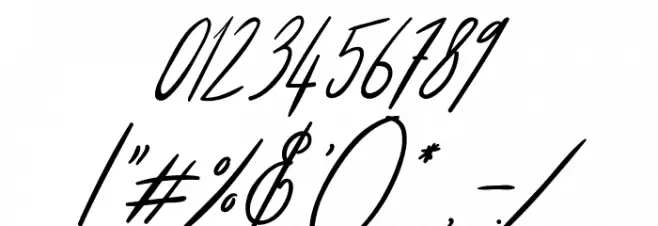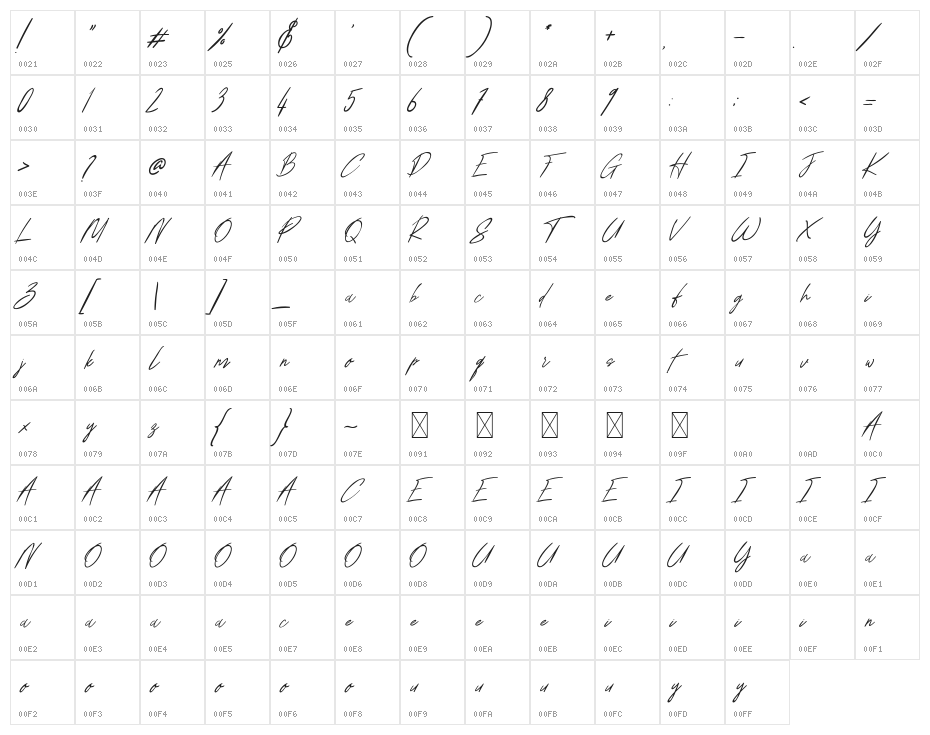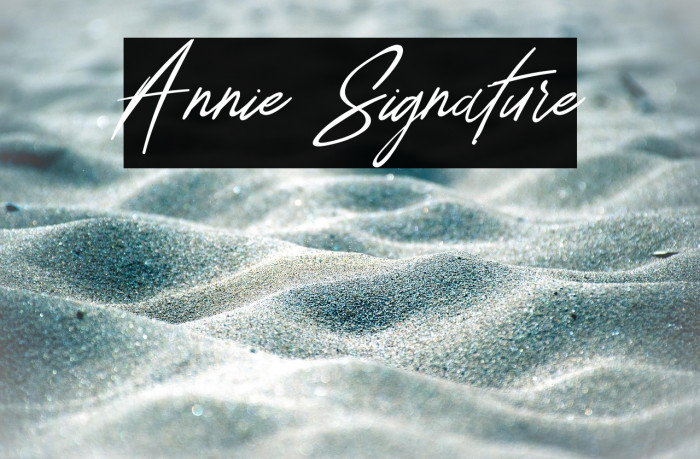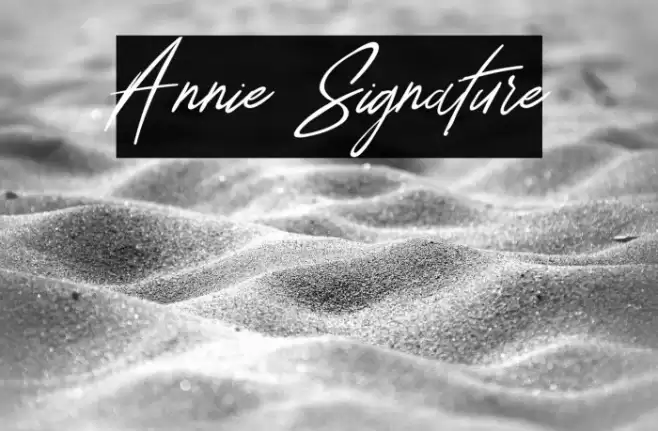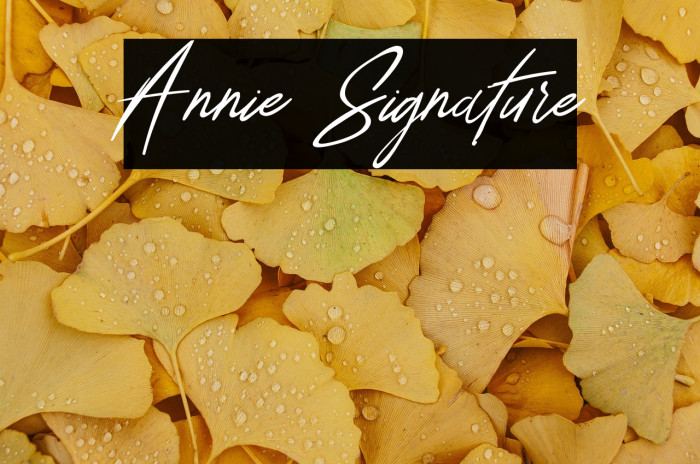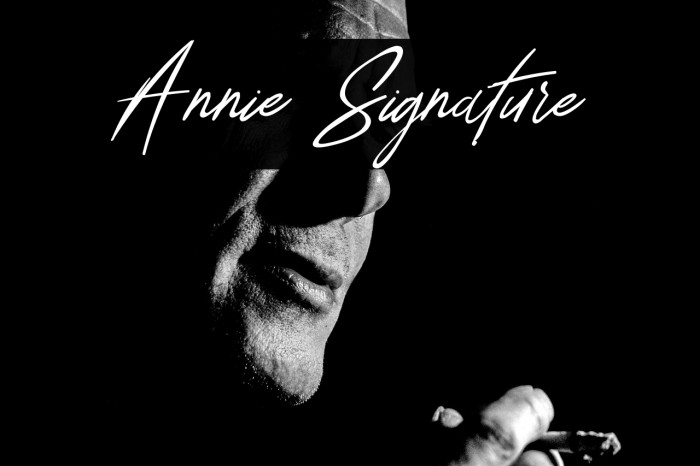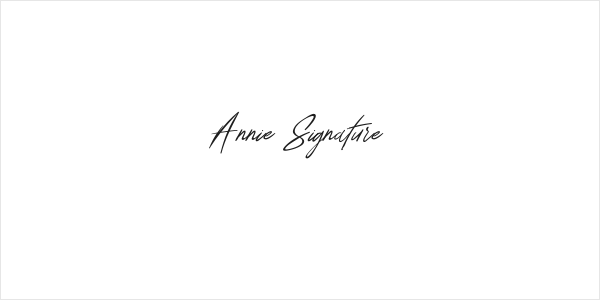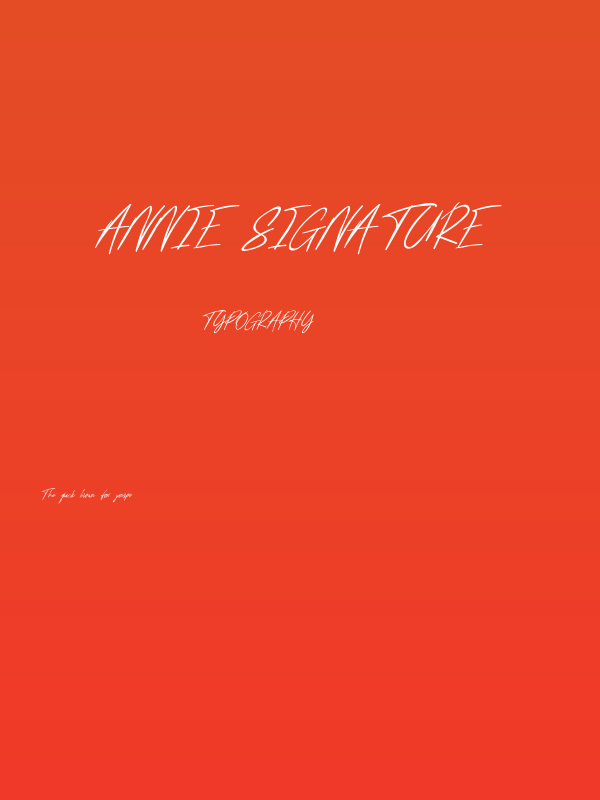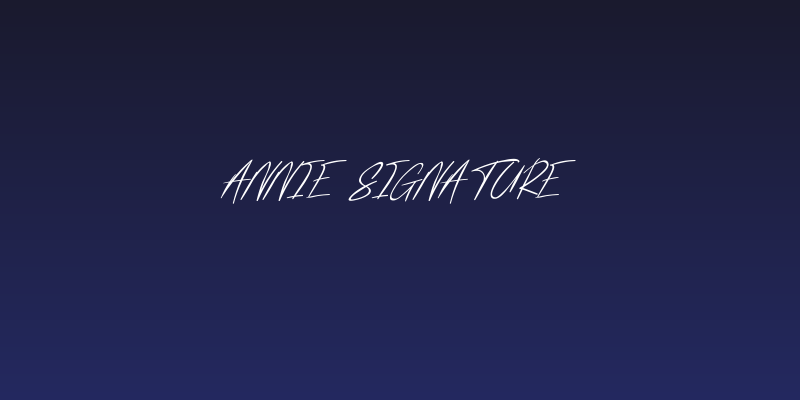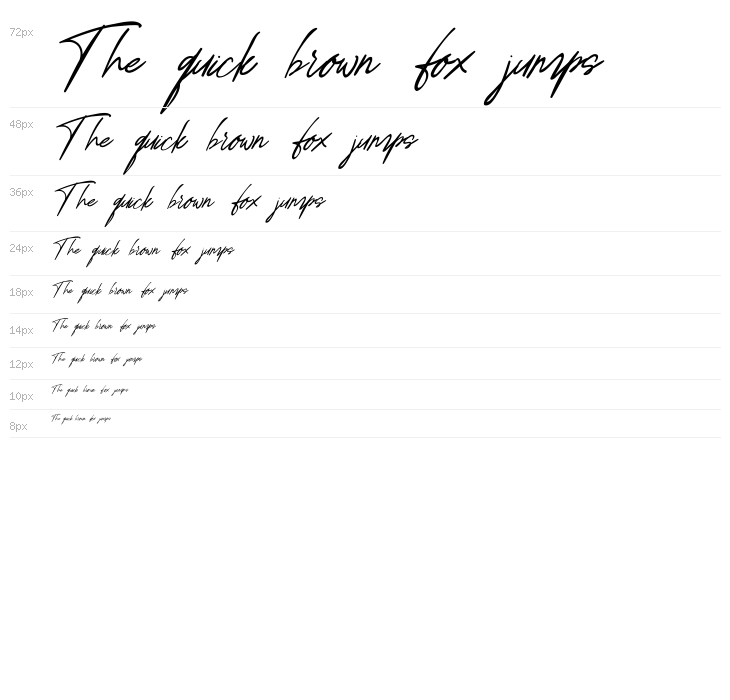
Annie Signature Font
Annie Signature Description
This font exudes a personal and expressive style, reminiscent of elegant handwriting with a modern twist. The letters are fluid and connected, creating a seamless flow across words. The strokes are varied, with some letters featuring elongated tails and loops, adding to its dynamic appearance. The uppercase letters are bold and striking, while the lowercase letters maintain a delicate and refined look. Numbers and special characters are crafted with the same attention to detail, ensuring consistency throughout. This font is perfect for projects that require a touch of sophistication and personality.
| Proposed Projects | Ideal for wedding invitations, personal branding, greeting cards, and elegant logos. |